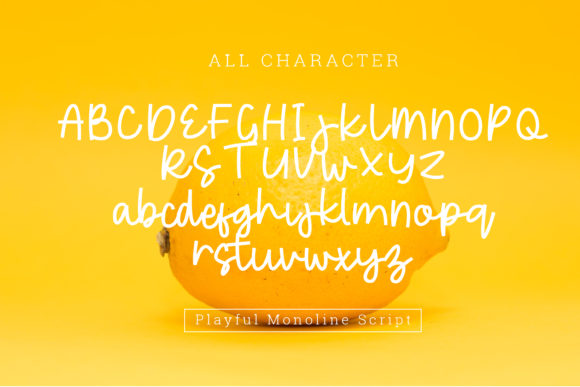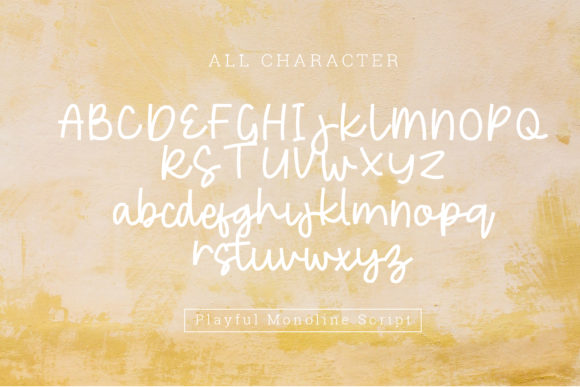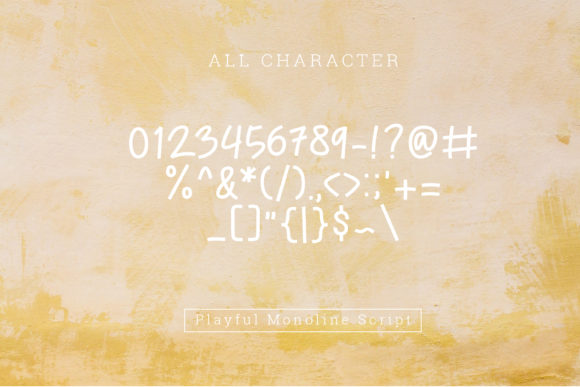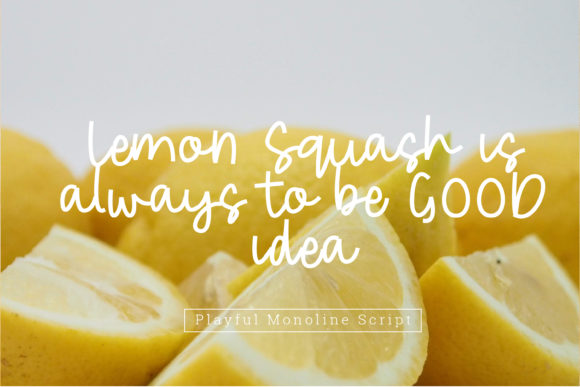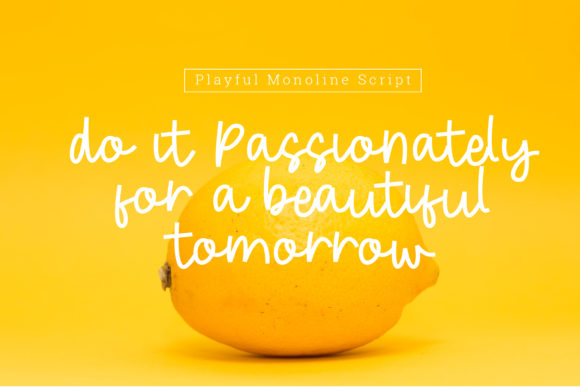
Fresh Lemonade Font
Fresh Lemonade is a cute and playful handwritten font. Casual and friendly, this font fits a wide pool of contexts. Add it to your creative ideas and notice how it brightens them up!